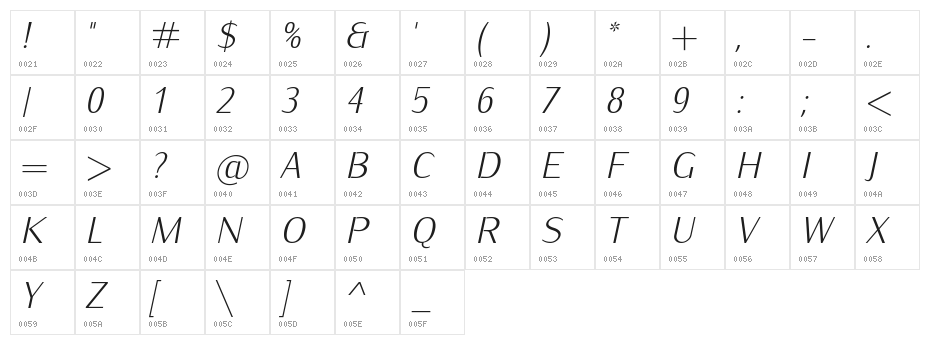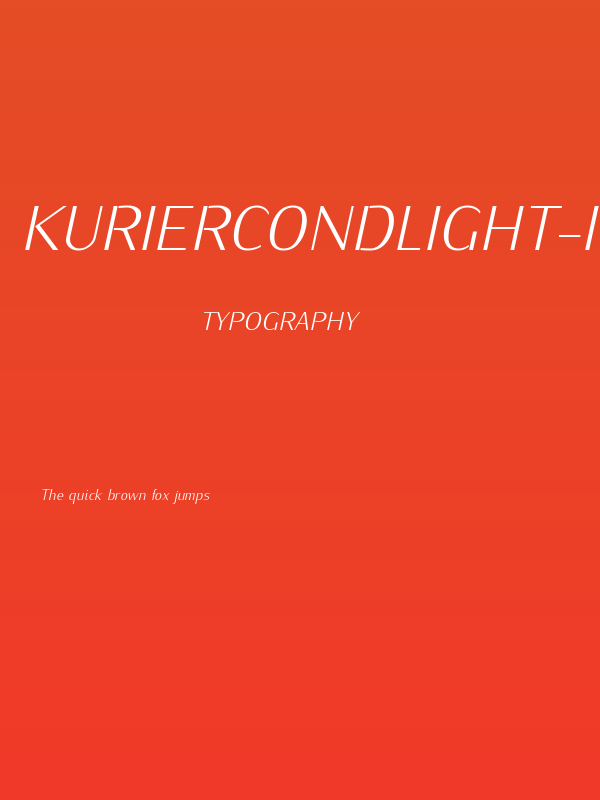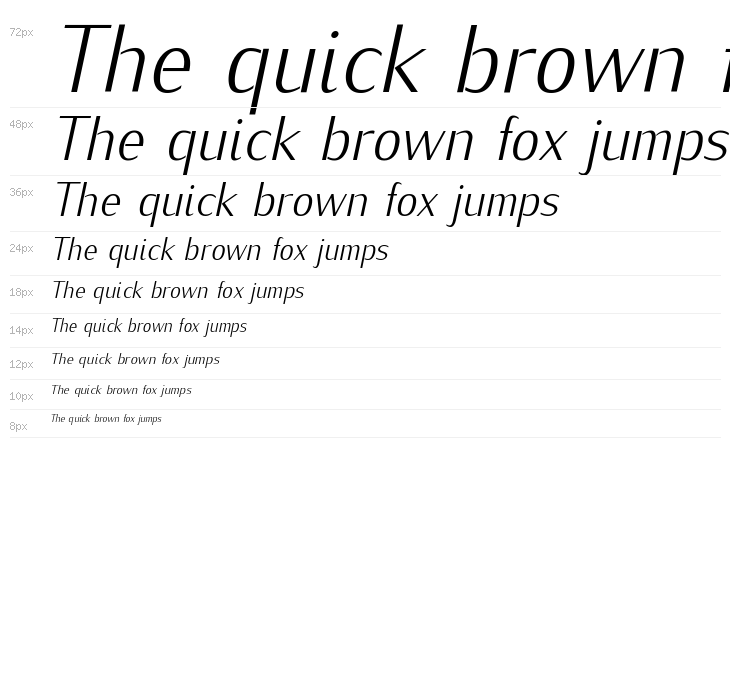
KurierCondLight-Italic Font
KurierCondLight-Italic Description
This font features a sleek and elegant design with a light weight and italic style. The characters are slightly condensed, giving it a refined and sophisticated appearance. The strokes are smooth and fluid, with a medium contrast that adds to its readability. The uppercase letters are tall and graceful, while the lowercase letters maintain a consistent flow. The numerals are clear and well-proportioned, and the special characters are designed to complement the overall aesthetic. This font is ideal for projects that require a touch of elegance and modernity.
| Proposed Projects | Ideal for fashion magazines, elegant invitations, modern branding, and stylish editorial design. |